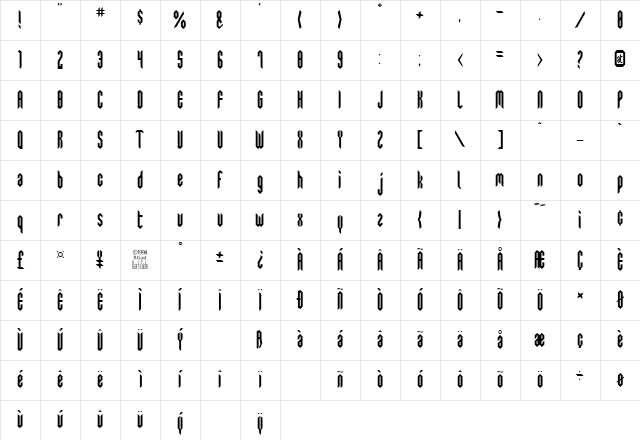
SwedieCruel Regular Free Font
SwedieCruel Regular
SwedieCruel Family
Complete SwedieCruel Regular glyph index. Displaying only characters natively supported by SwedieCruel Regular font.
Design Context for SwedieCruel
SwedieCruel is a composed and adaptable typeface that performs quietly and consistently across a wide range of design contexts.